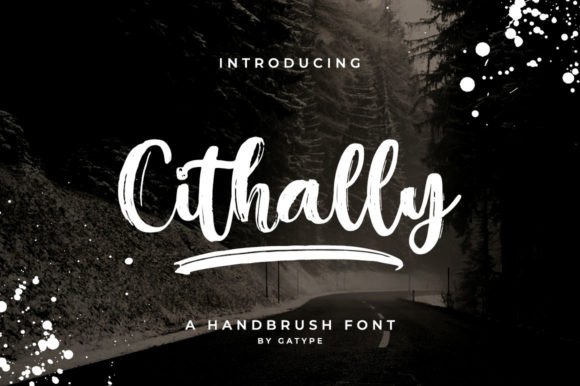
Behold, Cithally Font, the calligraphic masterpiece that dances across your digital canvas, leaving a trail of sophistication and elegance in its wake. This exquisite script font, meticulously crafted by the visionary designers at Gatype, embodies the essence of modern calligraphy, intertwining timeless beauty with contemporary verve.
Adorned with a distinctive and sharp brush texture, Cithally Font etches your words with an air of charm and individuality. Each letterform, a work of art in itself, unfurls with a graceful fluidity, evoking the delicate strokes of a master calligrapher's hand. The sharp edges and intricate details add depth and dimension to your designs, captivating the eyes of your audience.
Our designers conjured Cithally Font with an extensive character set, incorporating uppercase, lowercase, numerals, and an assortment of punctuation marks. This typographic treasure trove empowers you to craft captivating headlines, heartfelt invitations, inspiring quotes, and any other text that demands a touch of elegance and personality.
Cithally Font is not merely a collection of characters; it's a gateway to a world of endless creative possibilities. Whether you're a seasoned designer seeking to elevate your projects or a novice just starting your creative journey, Cithally Font will guide you towards stunning results.
Picture your social media posts adorned with Cithally's enchanting script, drawing likes and comments like bees to honey. Your wedding invitations will radiate an ethereal charm, leaving an unforgettable impression on your guests. Logos and branding will exude a timeless sophistication, setting your business apart from the ordinary.
Cithally Font is the perfect companion for those who seek to create designs that whisper poetry and communicate emotions. Its versatility extends to a wide array of projects, including stationery invitations, social media graphics, logos, weddings, branding, graphic designs, and much more. Let your imagination run wild as you discover new and exciting ways to utilize this typographic gem.
Embark on a creative odyssey with Cithally Font, the script font that transforms ordinary words into poetic expressions. Its captivating allure will leave a lasting impression on your audience, solidifying your position as a master of design.